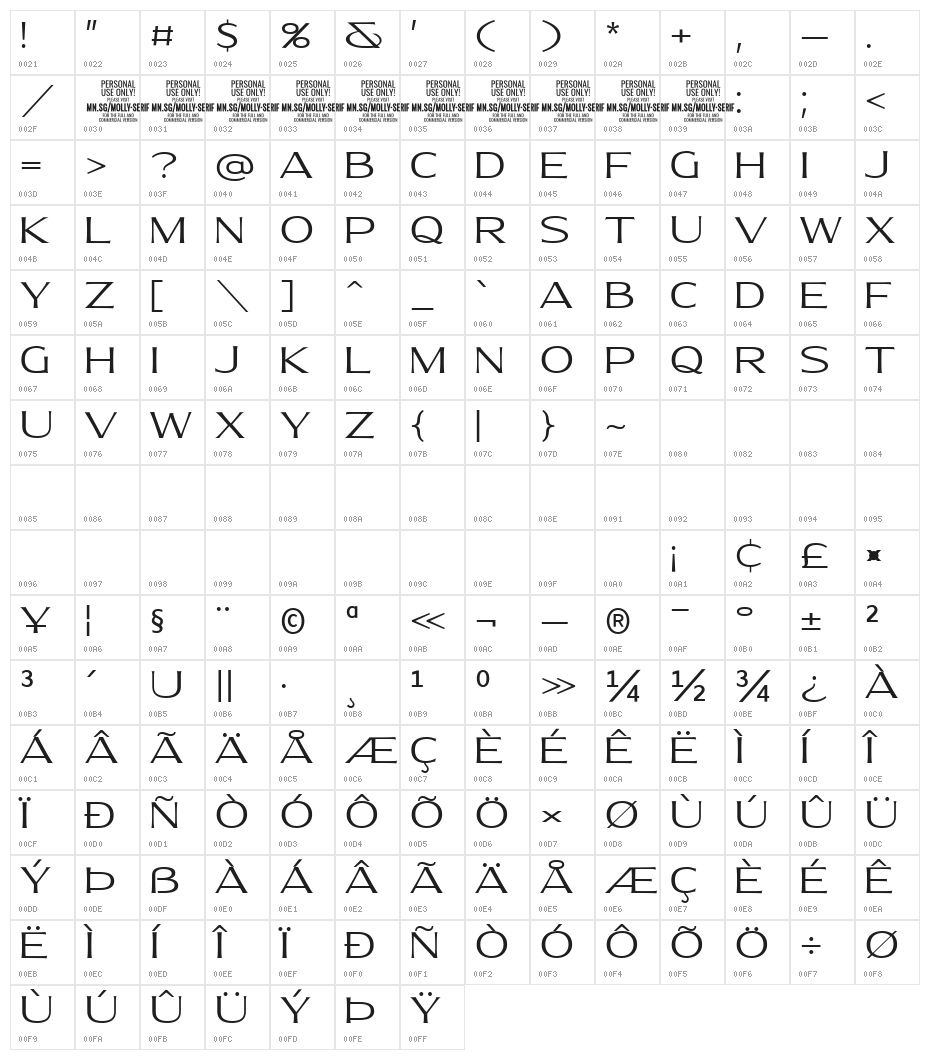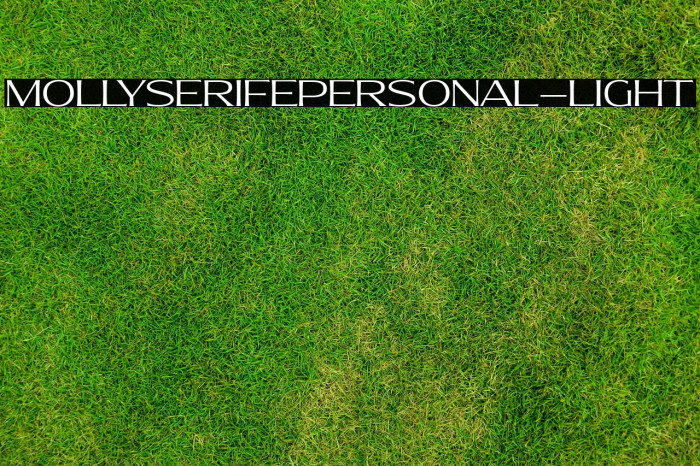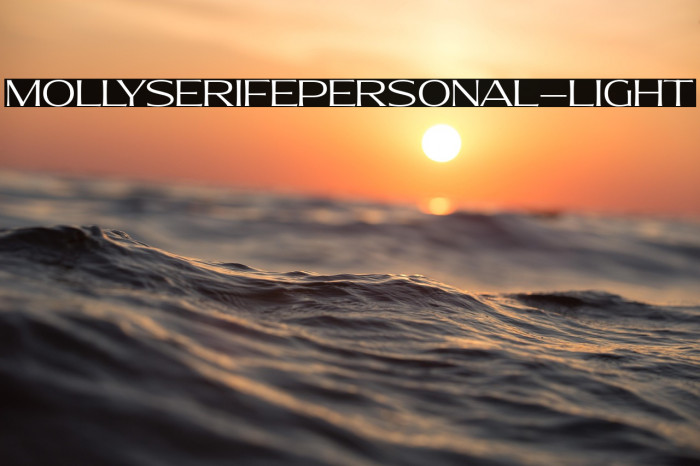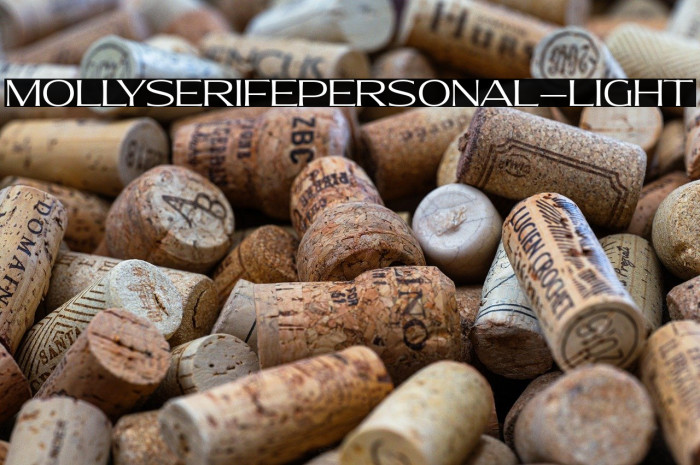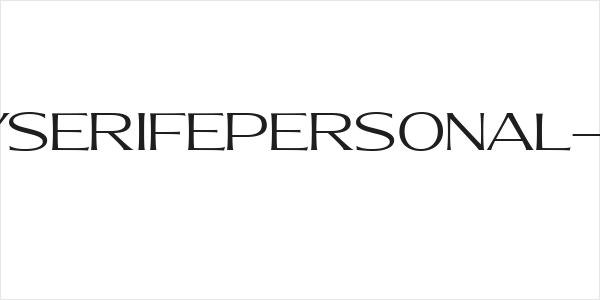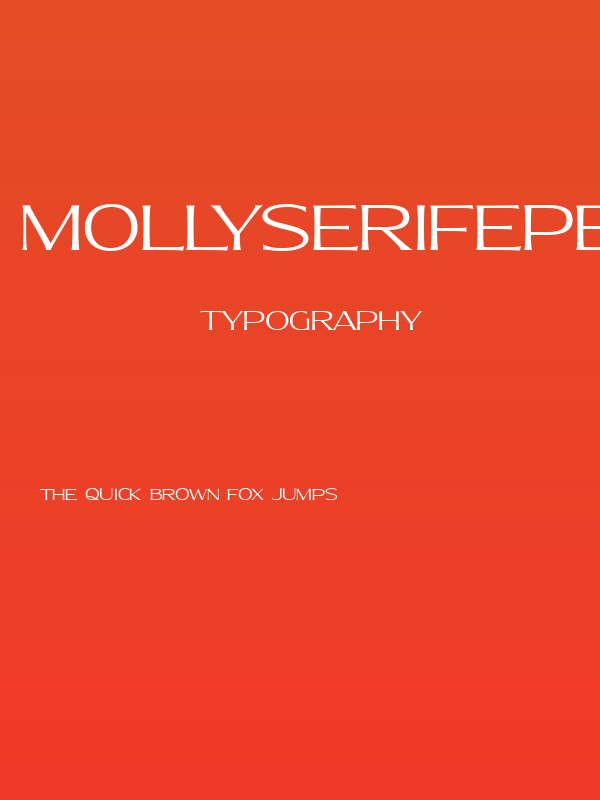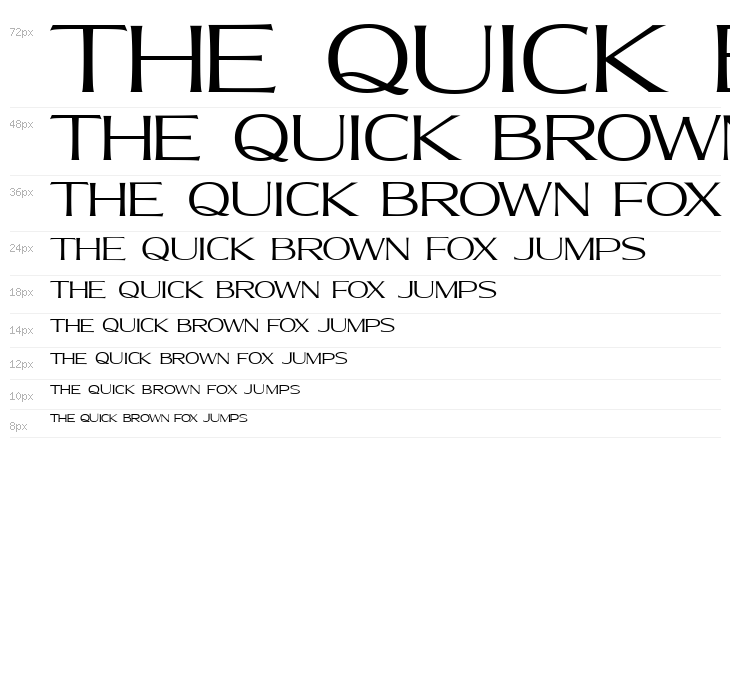
MollySerifEPERSONAL-Light Font
MollySerifEPERSONAL-Light Description
This font features a distinctive serif style with elegant, elongated strokes and a refined appearance. The uppercase letters exhibit a classic formality, while the lowercase letters maintain a consistent and harmonious flow. The numerals are clear and legible, complementing the overall sophisticated design. Special characters are crafted with attention to detail, adding to the font's versatility. The font's light weight contributes to its airy and graceful aesthetic, making it suitable for a variety of design applications.